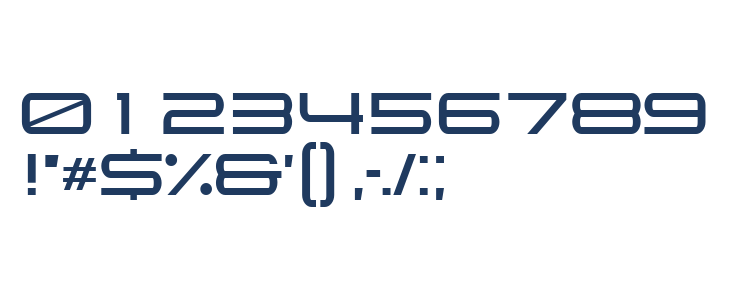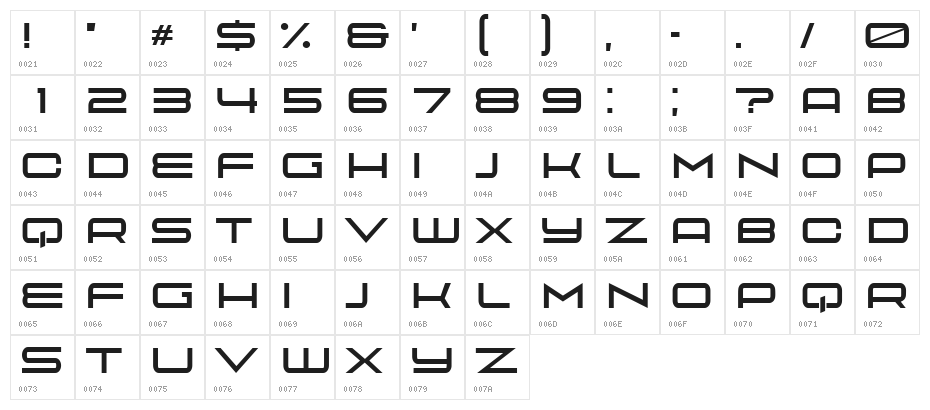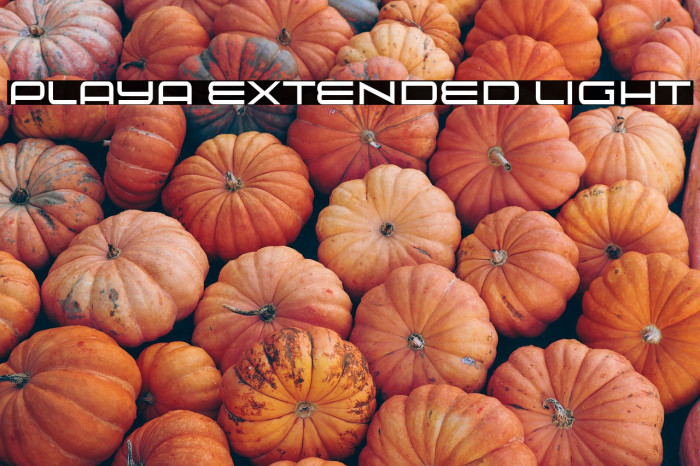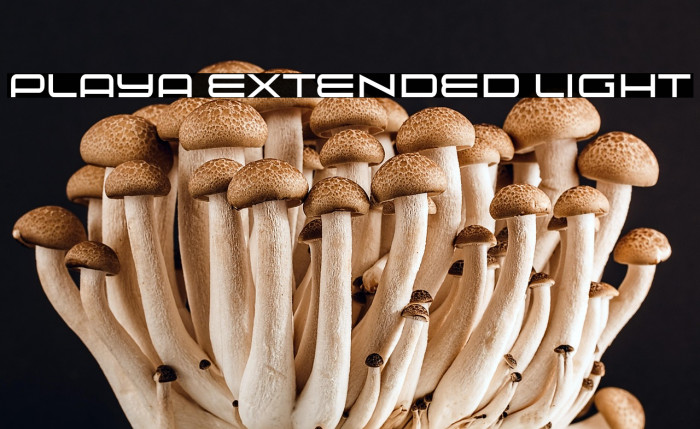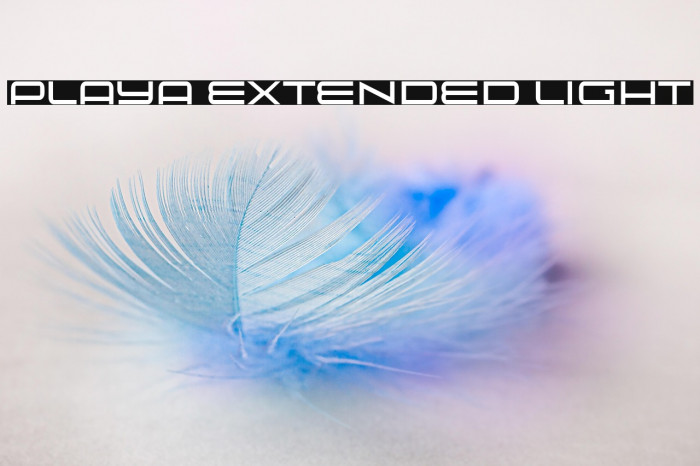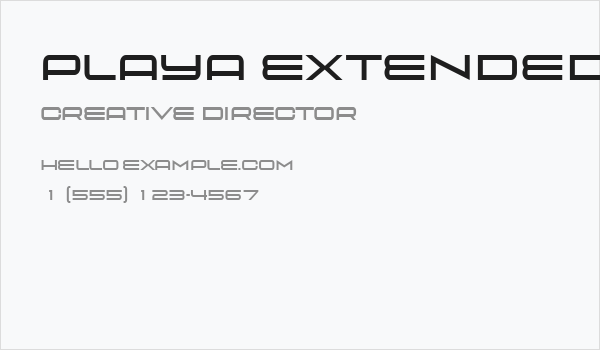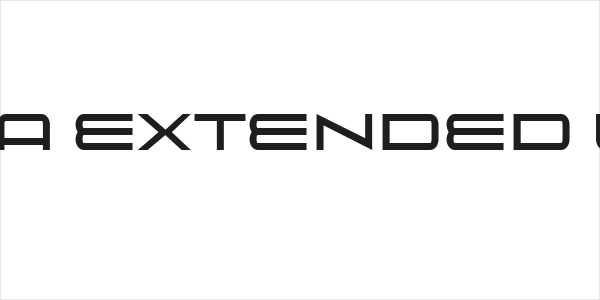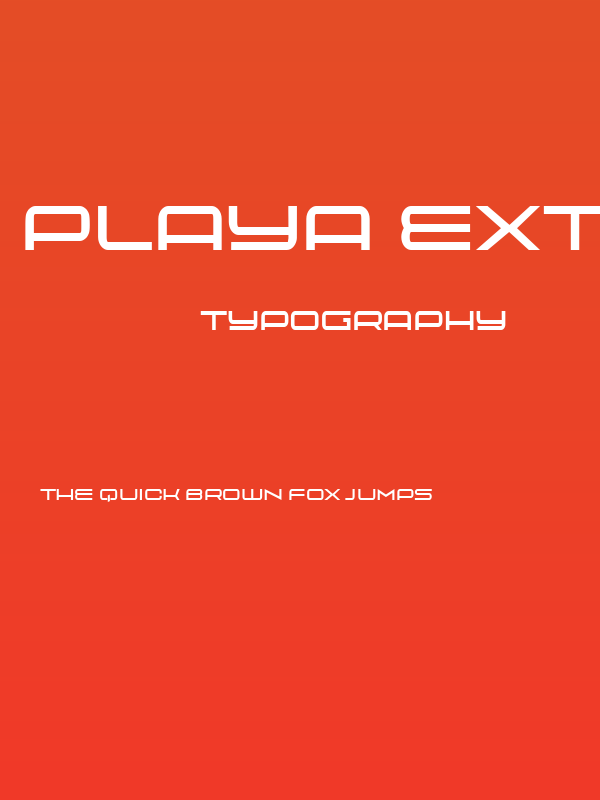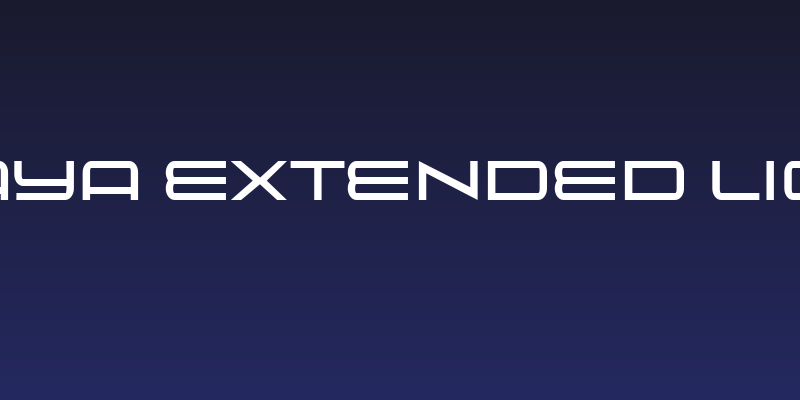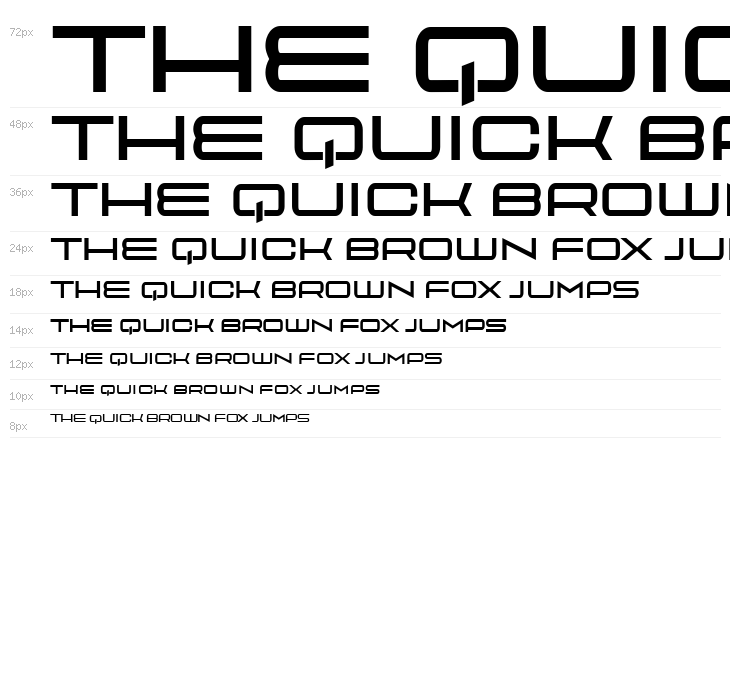
Playa Extended Light Font
Playa Extended Light Description
This font features a modern, geometric design with clean lines and a futuristic aesthetic. The characters are constructed with a consistent stroke width, giving it a uniform appearance. The uppercase letters are bold and angular, while the lowercase letters maintain the same geometric style, ensuring readability. The numerals and special characters follow the same design principles, making them easily distinguishable. The overall look is sleek and contemporary, suitable for digital and print media.
| Use Case | Headlines, Logos, Digital interfaces |
| Proposed Projects | Ideal for technology branding, digital interfaces, modern advertising, and sci-fi themed projects. |